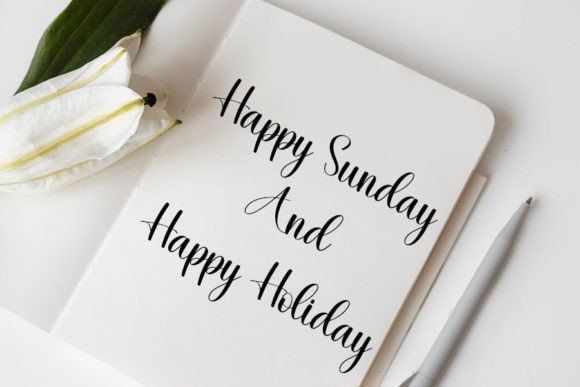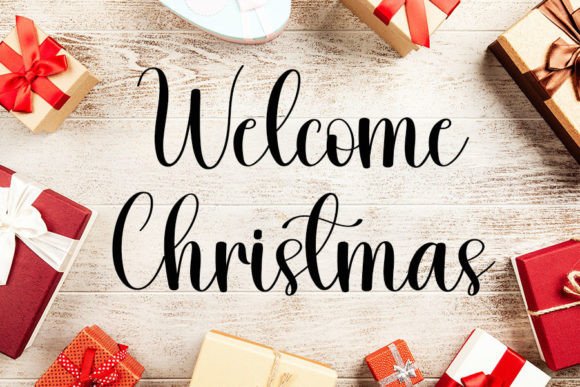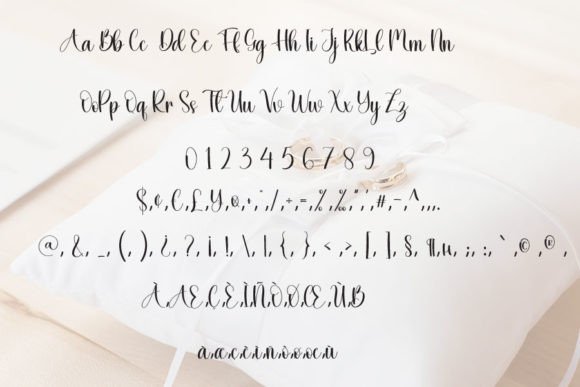
Introduction to Pillow Font
Have you ever found yourself in the middle of a creative project, desperately searching for the perfect font to bring your design to life? I’m sure we’ve all been there, scrolling through font libraries, trying to find that one special something that will elevate our work. For me, that moment came when I stumbled upon the Pillow Font. Its playful, handwritten style immediately caught my eye, and I knew I had to learn more.
The Pillow Font is a versatile design resource that’s perfect for any creative project, from digital designs to handmade crafts. Its high-quality, cursive script is both elegant and approachable, making it a valuable addition to any designer’s toolkit. Whether you’re looking for a free download or a paid font, the Pillow Font is sure to impress with its transparent background and endless design possibilities.
Pillow Font
Honest Review: Pillow Font
I recently stumbled upon the Pillow Font, a unique and eye-catching design resource that caught my attention. As a designer, I appreciate the idea of a free download that can elevate a creative project.
The Pillow Font boasts high-quality graphics that can add a professional touch to any design. One of the standout features is the transparent background, which allows for seamless integration into various design contexts.
- High-quality graphics ✨
- Transparent background ✨
However, I did encounter a few limitations. The font library is relatively small, which may limit its versatility in certain design projects. Additionally, the lack of customization options can be restrictive for designers who prefer a more tailored approach.
- Small font library ⚠️
- Lack of customization options ⚠️
Overall, the Pillow Font is a great resource for designers who want to add a touch of whimsy to their projects. While it may have some limitations, its unique design and high-quality graphics make it a valuable addition to any design toolbox.
Pillow Font
What is Pillow Font?
Pillow Font is a high-quality design resource that offers a wide range of stylish and creative font styles, perfect for any project. With a transparent background, you can easily integrate it into your designs without any background distractions.
Tips for Getting the Most Out of Pillow Font
To get the most out of Pillow Font, try combining it with other design resources, such as icons and graphics, to create a unique and eye-catching design. You can also experiment with different font sizes and styles to add depth and visual interest to your designs.
Pillow Font is perfect for any creative project, including:
Logo designs
Brochures and flyers
Business cards
Presentations and documents
Can I use Pillow Font for web design and digital projects?
Yes, Pillow Font is optimized for use in digital projects, including web design, mobile apps, and video games. With its transparent background and high-quality design, Pillow Font is an excellent choice for creating engaging and visually appealing digital experiences.